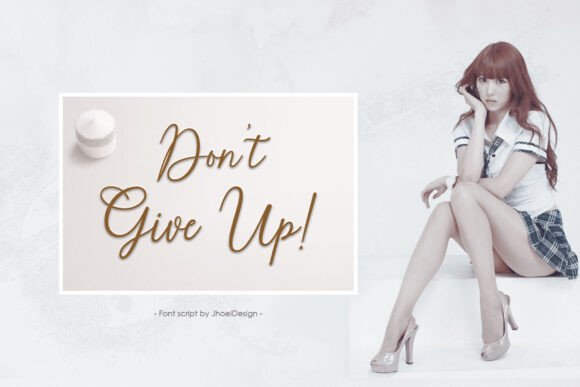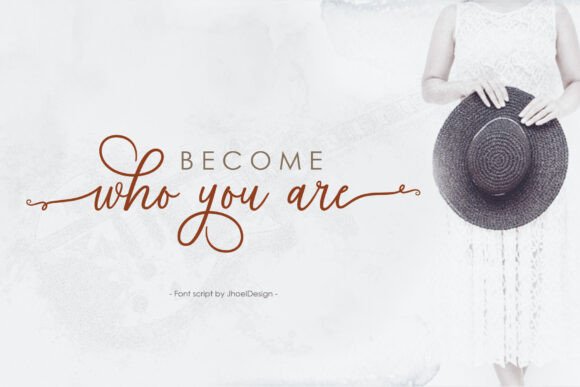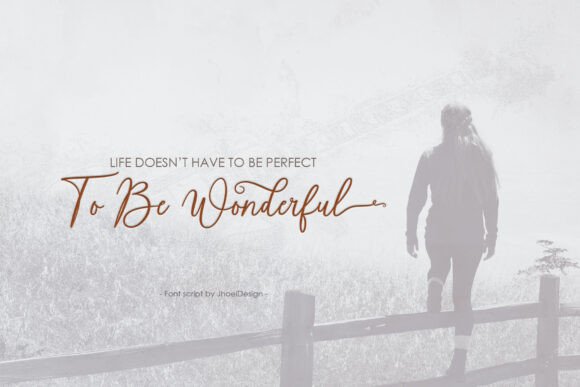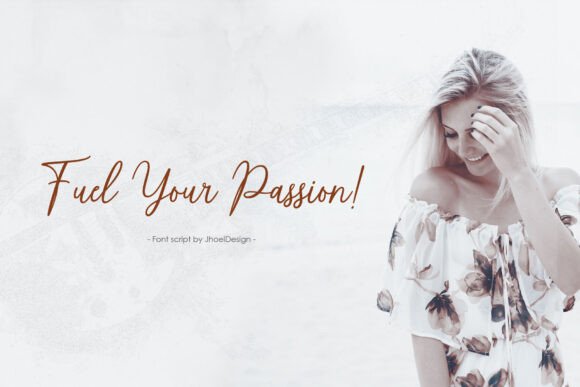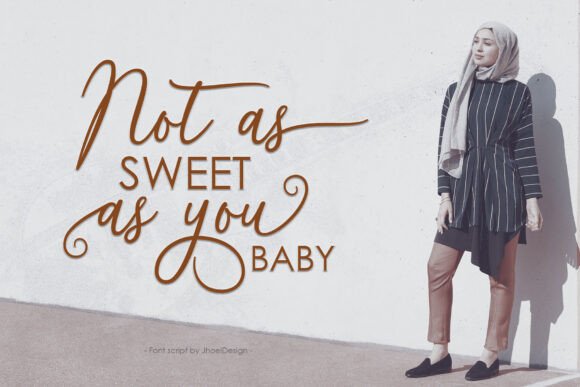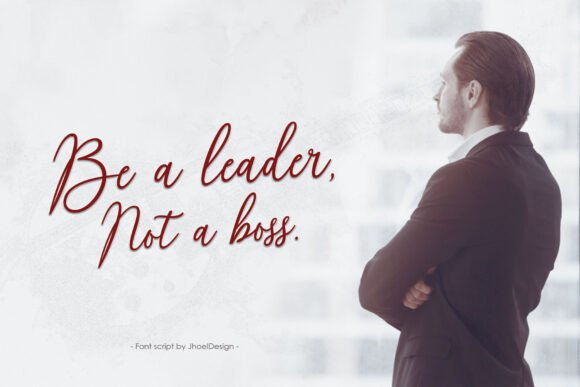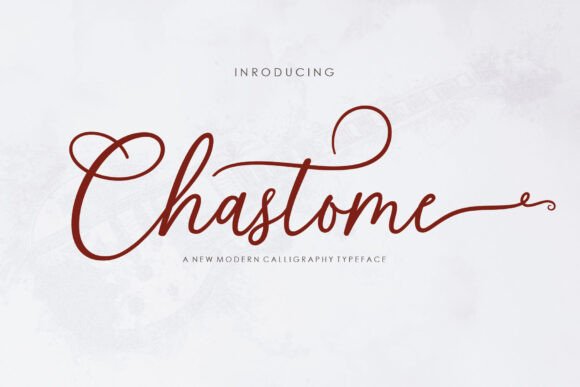
Introducing Chastome Script Font: Elevate Your Designs with Elegance and Versatility
In the world of typography, a font can make or break a design. For designers and crafters looking for that perfect touch of elegance and sophistication, the Chastome Script Font is an exceptional choice. This beautifully crafted script font is designed to meet a wide range of design needs, offering a comprehensive set of characters that can elevate any project from ordinary to extraordinary.
What Makes Chastome Script Font Stand Out?
Chastome Script Font is not just another script font; it’s a versatile tool that can transform your designs. Here are some of its standout features:
- Comprehensive Character Set: Chastome Script includes the full set of upper and lower case letters, ensuring you have everything you need to create stunning text-based designs.
- Multilingual Support: With multilingual symbols, this font caters to a global audience, making it perfect for international brands or projects with a diverse reach.
- Numbers and Punctuation: The inclusion of numbers and punctuation marks ensures that your designs are not only beautiful but also fully functional.
- Standard Ligatures and Stylistic Alternates: Adding a touch of sophistication, the font comes with standard ligatures and stylistic alternates, allowing for a high degree of customization to suit your design’s mood.
Endless Design Possibilities with Chastome Script
The versatility of Chastome Script Font makes it suitable for a myriad of design applications. Here are some ways you can use this elegant font:
- Logos and Branding: Create a lasting impression with a unique logo that speaks elegance and professionalism.
- Social Media Posts: Stand out on social media platforms with beautifully crafted text overlays and quotes.
- Advertisements: Whether it’s a digital ad or a print one, Chastome Script can add that touch of class to make your advertisement memorable.
- Business Cards: Make your business cards more personal and engaging with a font that exudes warmth and sophistication.
- Product Design: From packaging to product labels, add a personal touch that connects with your audience.
Why Choose Chastome Script Font?
In a sea of fonts, why should Chastome Script be your go-to choice? Here are a few compelling reasons:
- Ease of Use: Designed to be user-friendly, Chastome Script can be easily integrated into your design workflow.
- High Readability: Despite its script nature, the font maintains high readability, making it perfect for both headings and body text.
- Unique Style: Its unique style ensures that your designs stand out from the crowd, giving you a competitive edge.
| Author | JhoelDesign |
Chastome Script Font is more than just a font; it’s a design companion that can elevate your projects to new heights. With its comprehensive character set, multilingual support, and elegant design, it’s perfect for designers and crafters looking to add a touch of sophistication to their work. Whether you’re working on logos, social media posts, advertisements, business cards, or product designs, Chastome Script Font is an excellent choice. Embrace the elegance and versatility of Chastome Script and let your designs speak volumes.